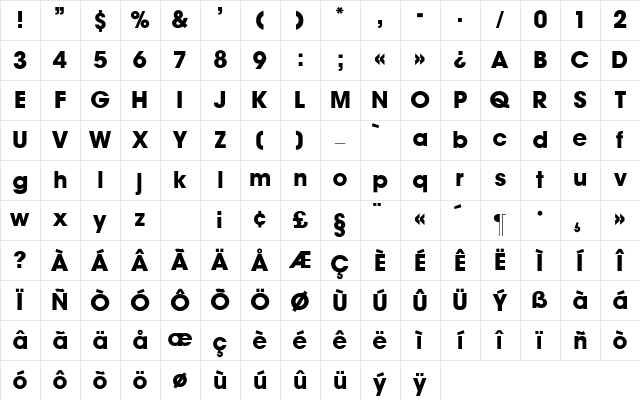
Avant_G-Bold is a composed and adaptable typeface that performs quietly and consistently across a wide range of design contexts. Its bold stroke weight gives it real presence on the page.